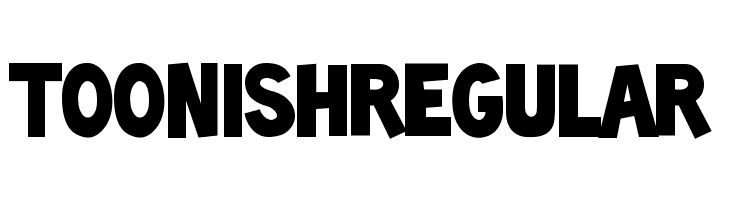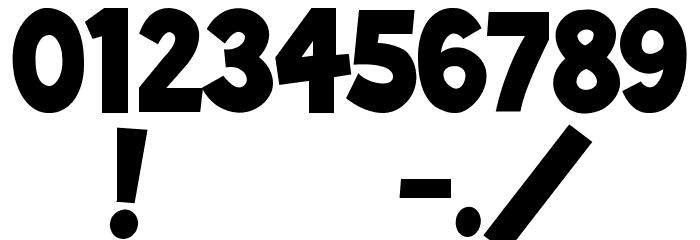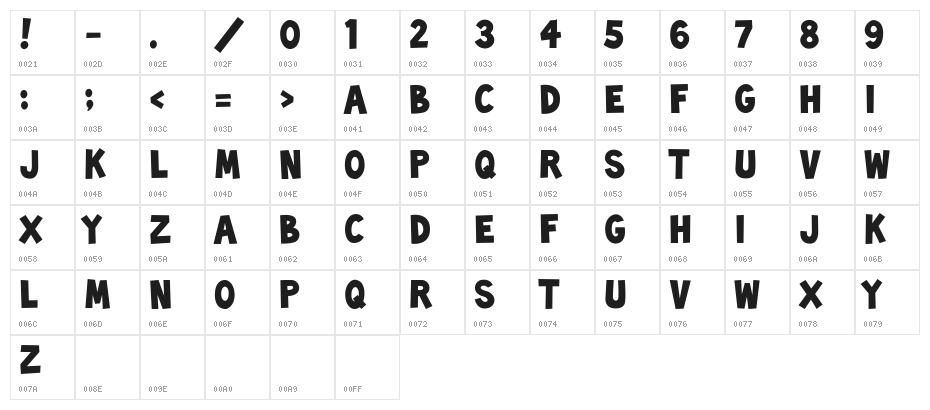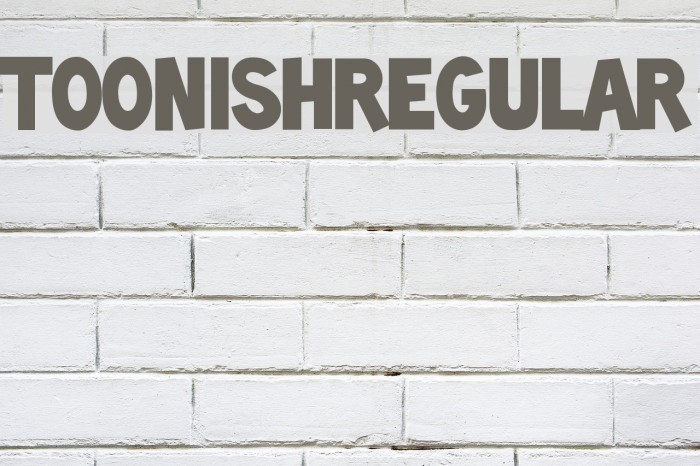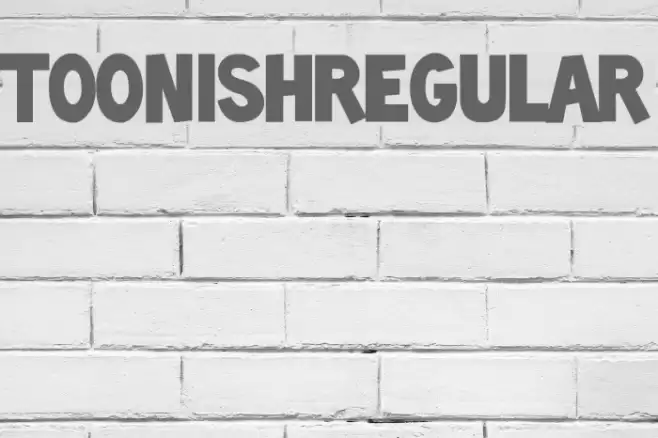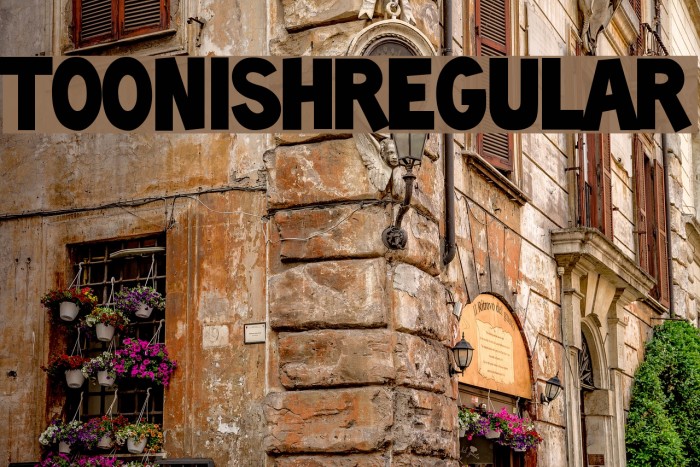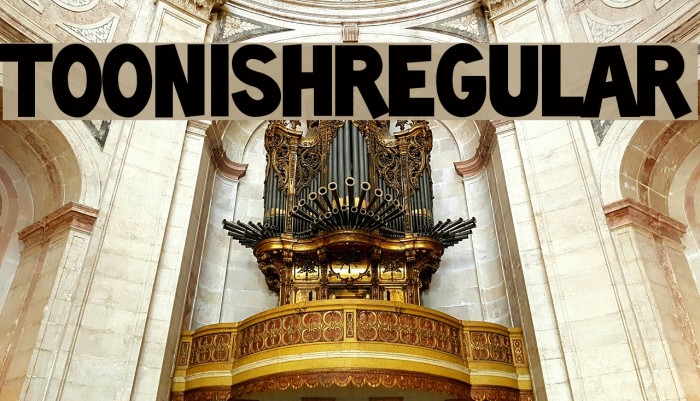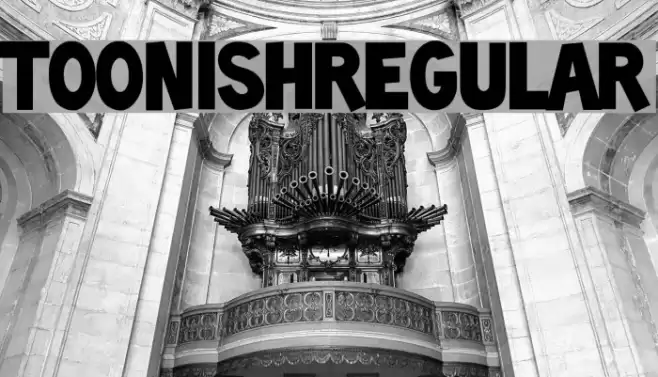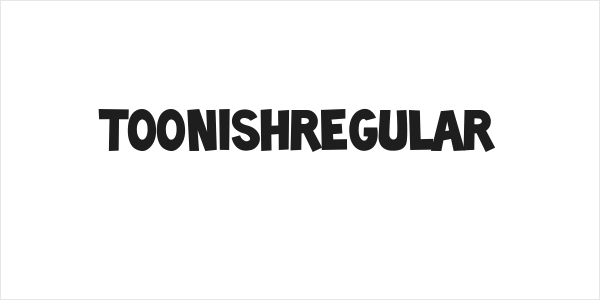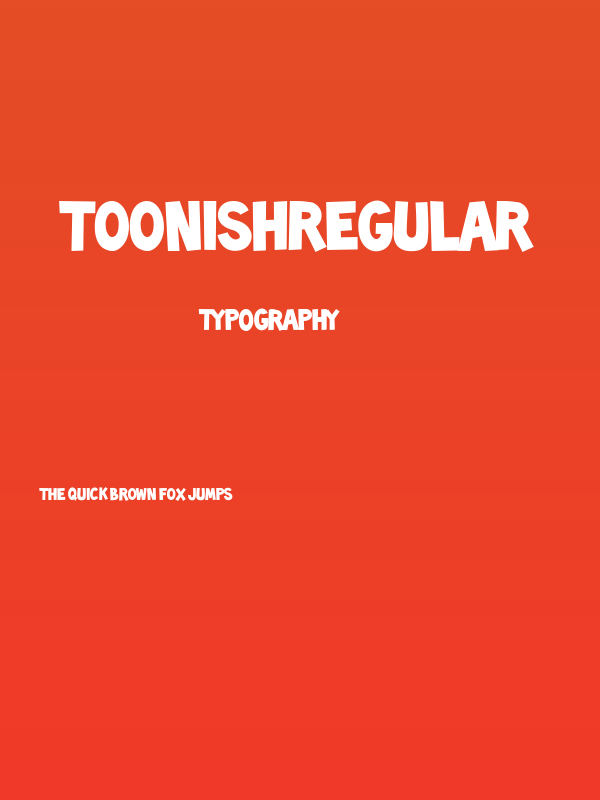
ToonishRegular Font
ToonishRegular Description
This playful and bold font features thick, rounded characters that exude a sense of fun and creativity. The letters are slightly irregular, giving them a hand-drawn, cartoonish appearance that is both approachable and lively. The font's bold weight and high contrast make it highly legible, even from a distance, while its whimsical style adds a touch of humor and charm. The spacing between characters is tight, enhancing its cohesive look. Ideal for projects that require a lighthearted and engaging aesthetic, this font is perfect for children's books, comic strips, or playful branding.
| Overall Style | Playful, Cartoonish |
| Use Case | Headlines, Posters, Logos |
| Proposed Projects | Children's books, comic strips, playful branding, posters, and advertisements. |